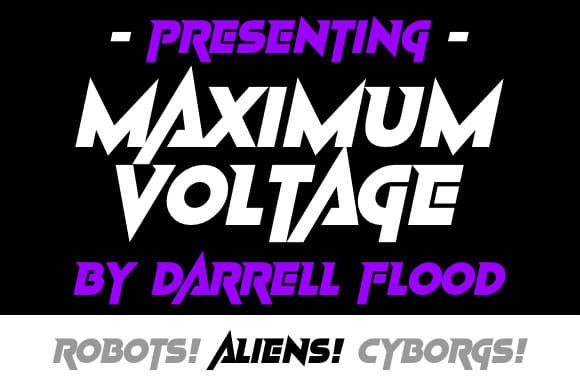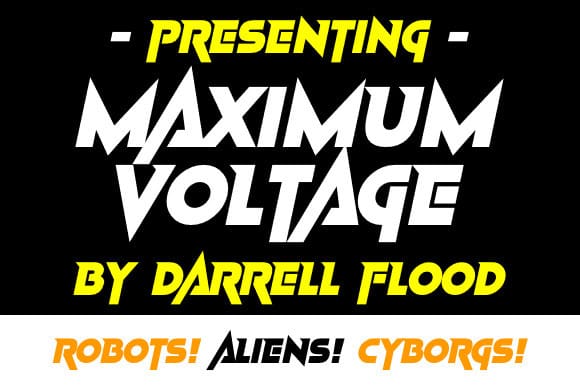
Maximum Voltage Font
Maximum Voltage Font, A sharp, bold font in a spiky, energetic style. Perfect for modern music, futuristic themes and high tech projects!